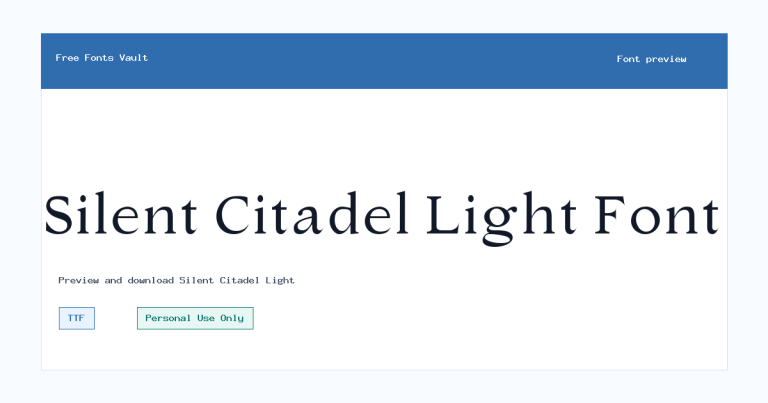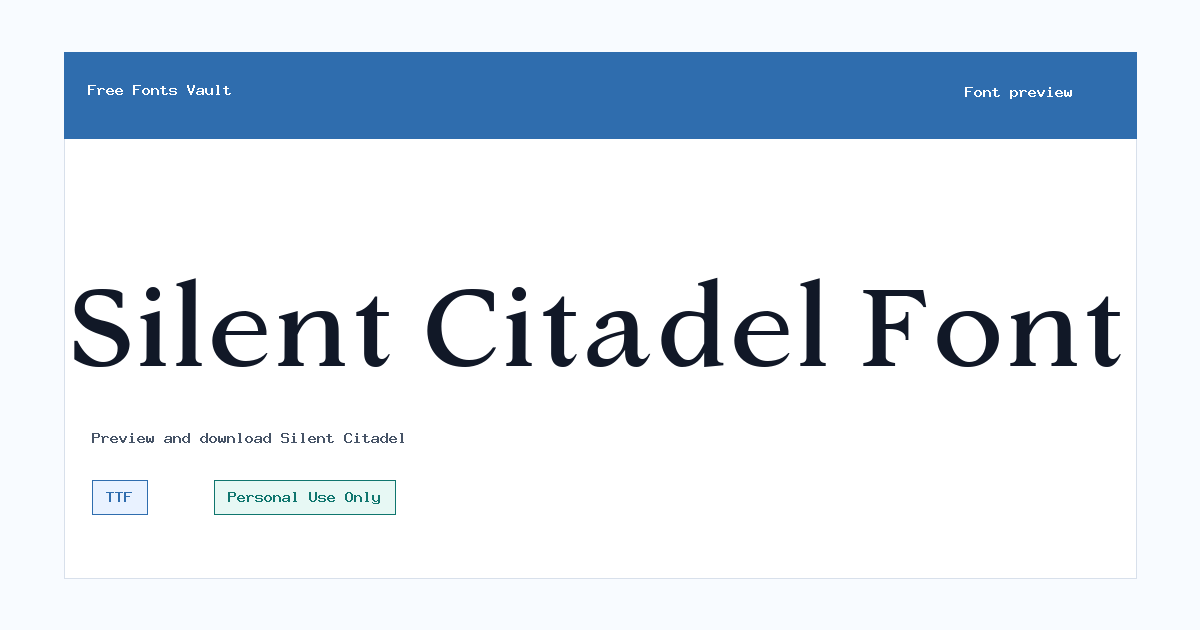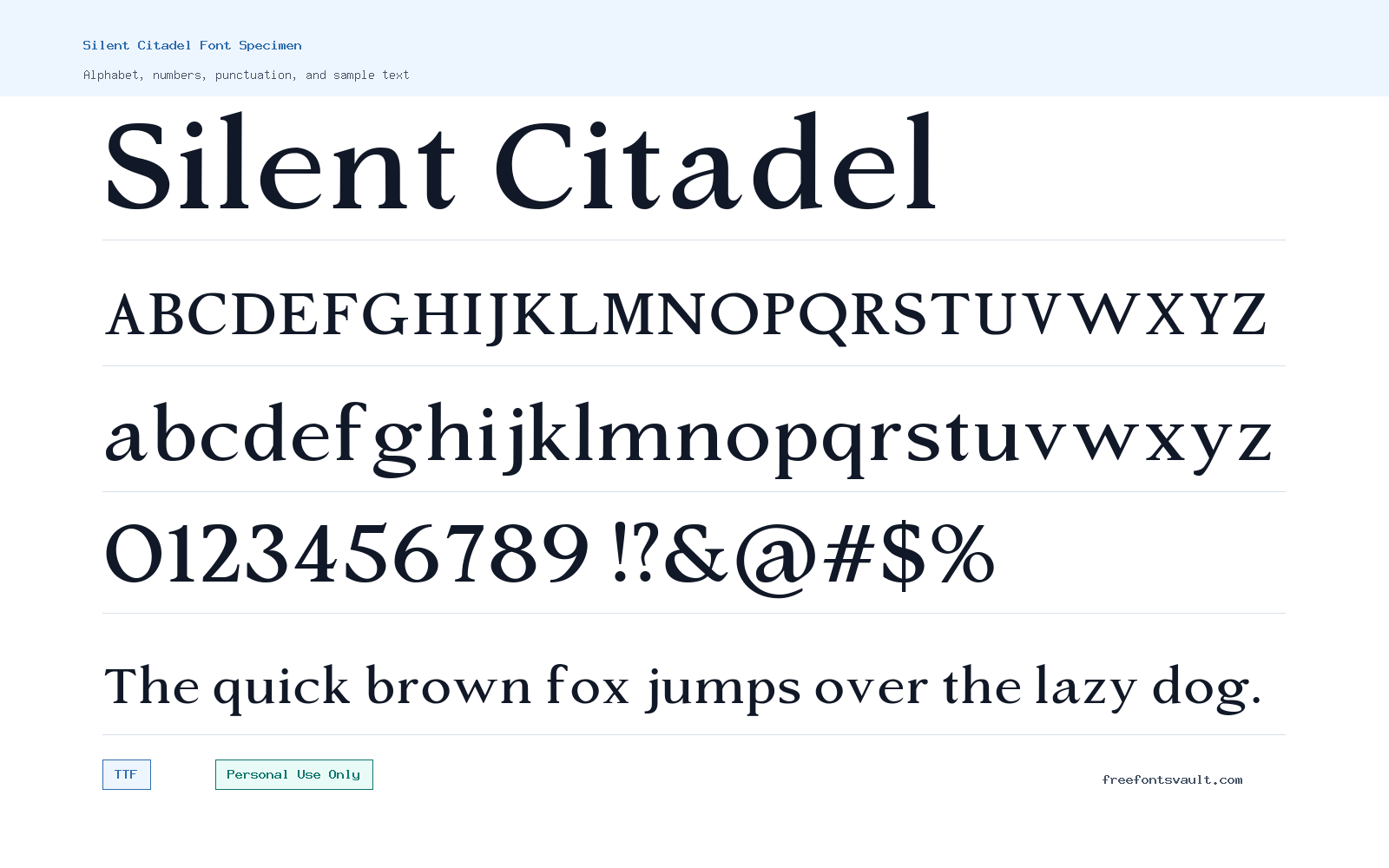
Silent Citadel
Silent Citadel font.
Silent Citadel is a serif font family by Muhamad Fikry Nuralif, offered in regular, italic, bold, and bold italic TTF styles for personal-use design work.
About Silent Citadel
Silent Citadel has the practical structure of a serif display family: a regular style for clean title setting, an italic style for emphasis, and heavier bold cuts when a word or heading needs more presence. Because the family includes both upright and italic forms, it gives designers more flexibility than a single-style decorative font. You can test a main title in the regular weight, use the bold for stronger hierarchy, and save the italic for subtitles, author names, date lines, captions, or short pieces of supporting text.
This is the kind of font to preview carefully before using it in a finished layout. Try it first with the exact words you plan to use, especially if the project involves a logo, poster headline, book-style title, invitation, product label, or web hero mockup. Serif display faces can look strong in short phrases, but spacing, punctuation, and letter combinations matter. In the preview tool, test uppercase and lowercase, numbers, ampersands, apostrophes, and any brand-specific words. If the design needs long paragraphs or small mobile text, pair Silent Citadel with a simpler sans serif or text serif so the decorative voice stays in the headline while the body copy remains easy to read.
- Serif family structure suitable for headings, titles, and short display text.
- Includes upright and italic styles for simple visual hierarchy.
- Bold styles help create stronger emphasis in posters, covers, and mockups.
- Poster titles and display headlines
- Logo drafts and brand concept mockups
- Book, magazine, or editorial-style cover designs
- Invitation headings and event graphics
- Website hero text and landing page mockups
- Product label concepts for personal projects
- Social media quote graphics or announcement cards
- Typography experiments where regular, italic, and bold styles are useful
For logo work, start by testing the brand name in all four styles. The regular style may work for a balanced mark, while bold can help a short name feel more solid. Italic is better for accents than full identity systems unless the slant fits the concept. For posters and web mockups, use Silent Citadel at larger sizes and give it enough spacing around the letters. Pair it with a neutral sans serif for menus, captions, buttons, and body text so the layout does not feel crowded. If you plan to export artwork, print a sample or check a high-resolution preview to make sure thin details, punctuation, and spacing still look clean.
Which styles does Silent Citadel include?
Silent Citadel includes regular, italic, bold, and bold italic styles.
Is Silent Citadel good for logos?
What should I pair with Silent Citadel?
Pair it with a clean sans serif or a quiet text serif. Let Silent Citadel handle headlines and short display text, then use the simpler font for paragraphs, navigation, labels, and small text.
Should I use Silent Citadel for long paragraphs?
It is better to test it as a display font first. Use it for titles, short lines, and emphasis, then choose a more readable companion font for long-form copy.